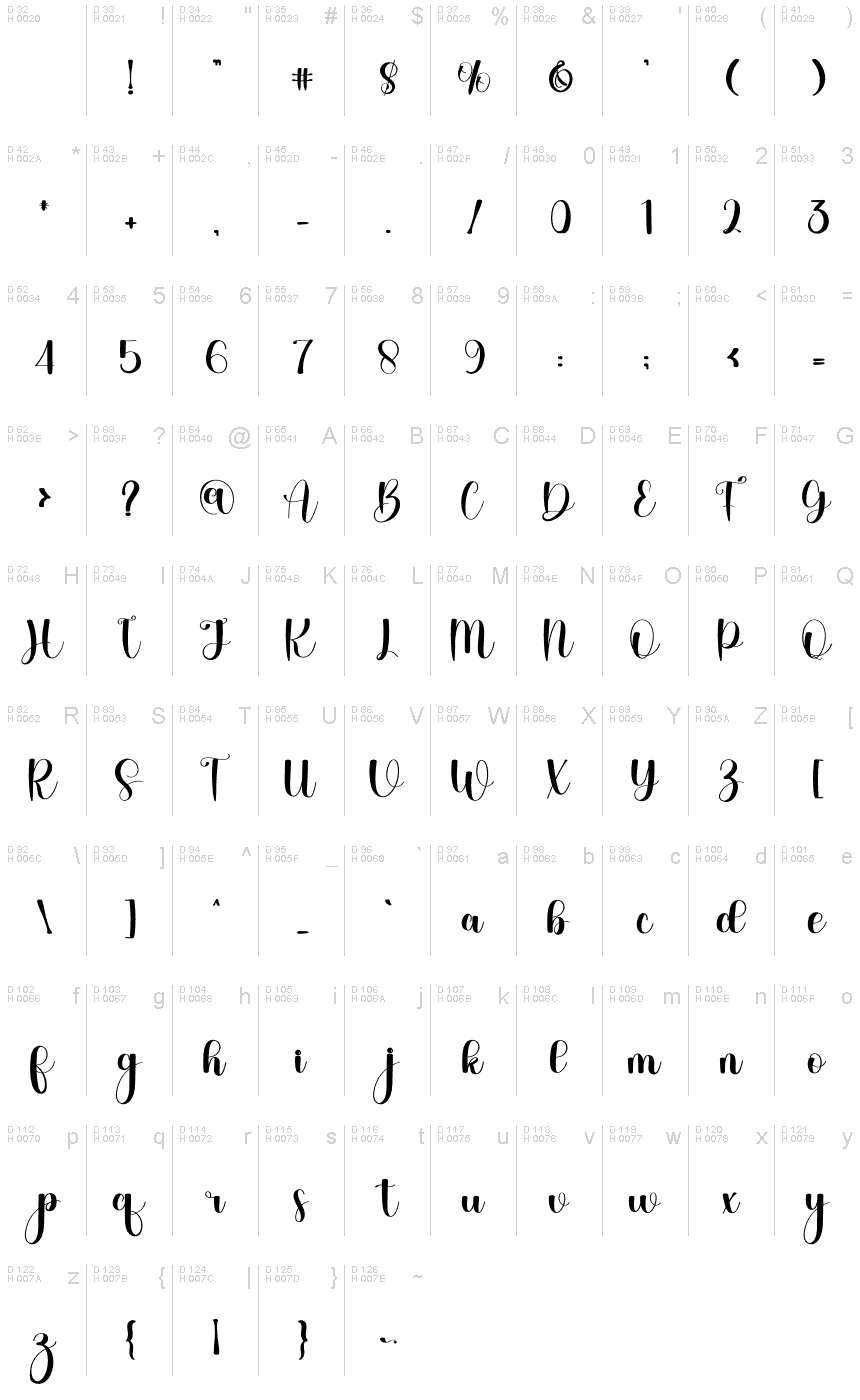
Blacklist
Blacklist, designed by Inermedia Studio, is an exquisite calligraphy font that adds elegance and sophistication to any project. With its flowing strokes and graceful curves, this font is perfect for wedding invitations, high-end branding, and luxury product packaging. The semi-bold typeface of Blacklist exudes confidence and professionalism, making it ideal for creating impactful headlines in magazines or captivating logo designs. Whether you are designing a romantic greeting card or a modern website interface, Blacklist will elevate your project with its timeless beauty and versatility.